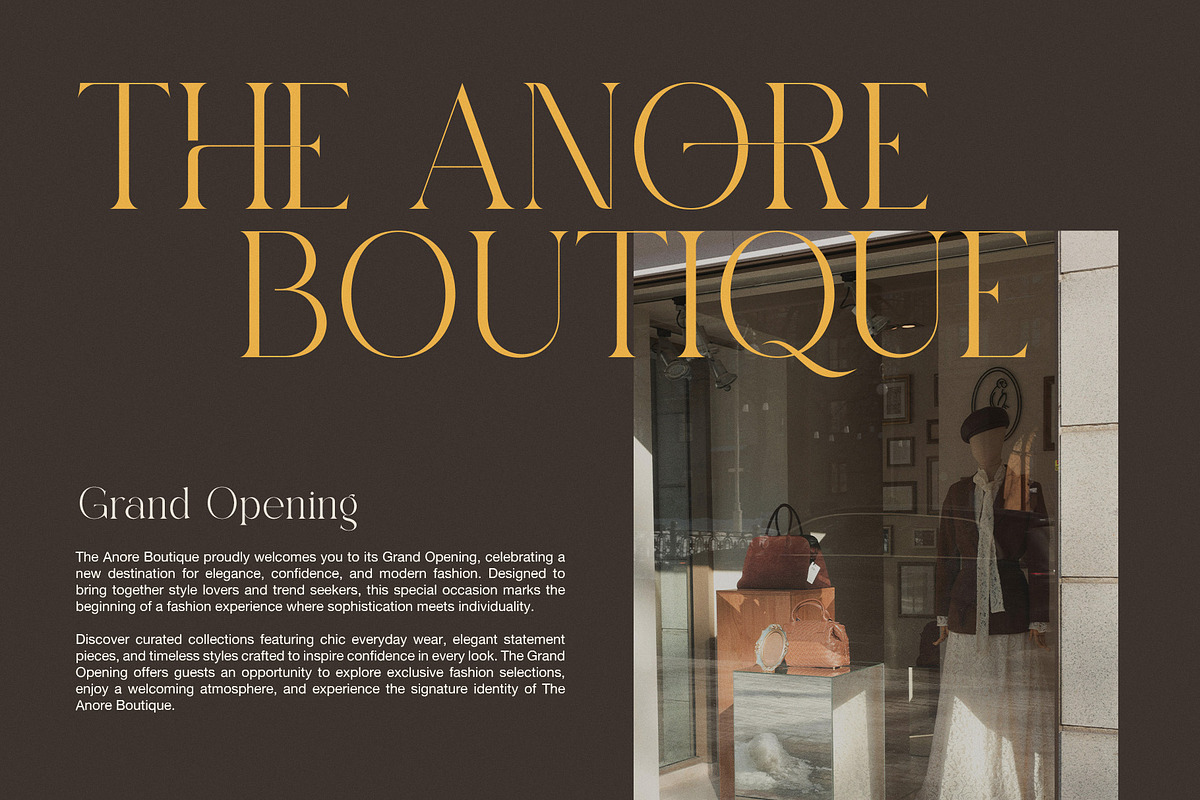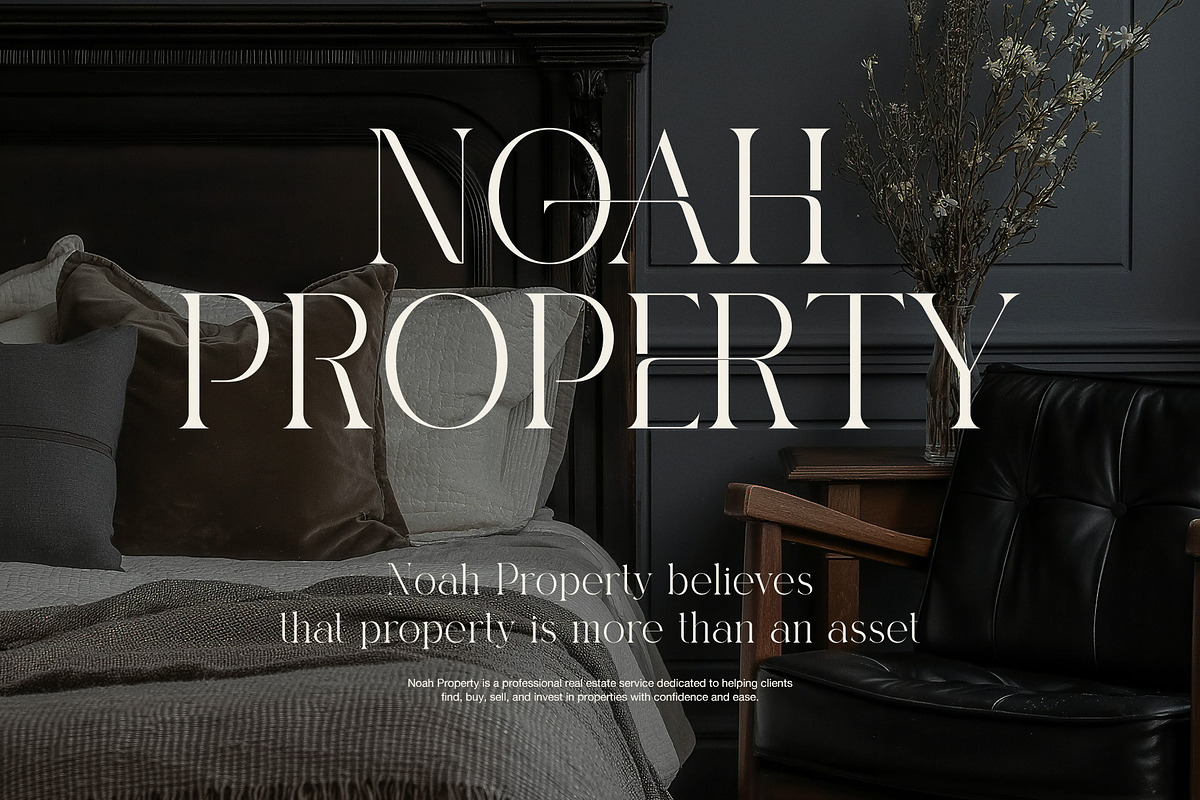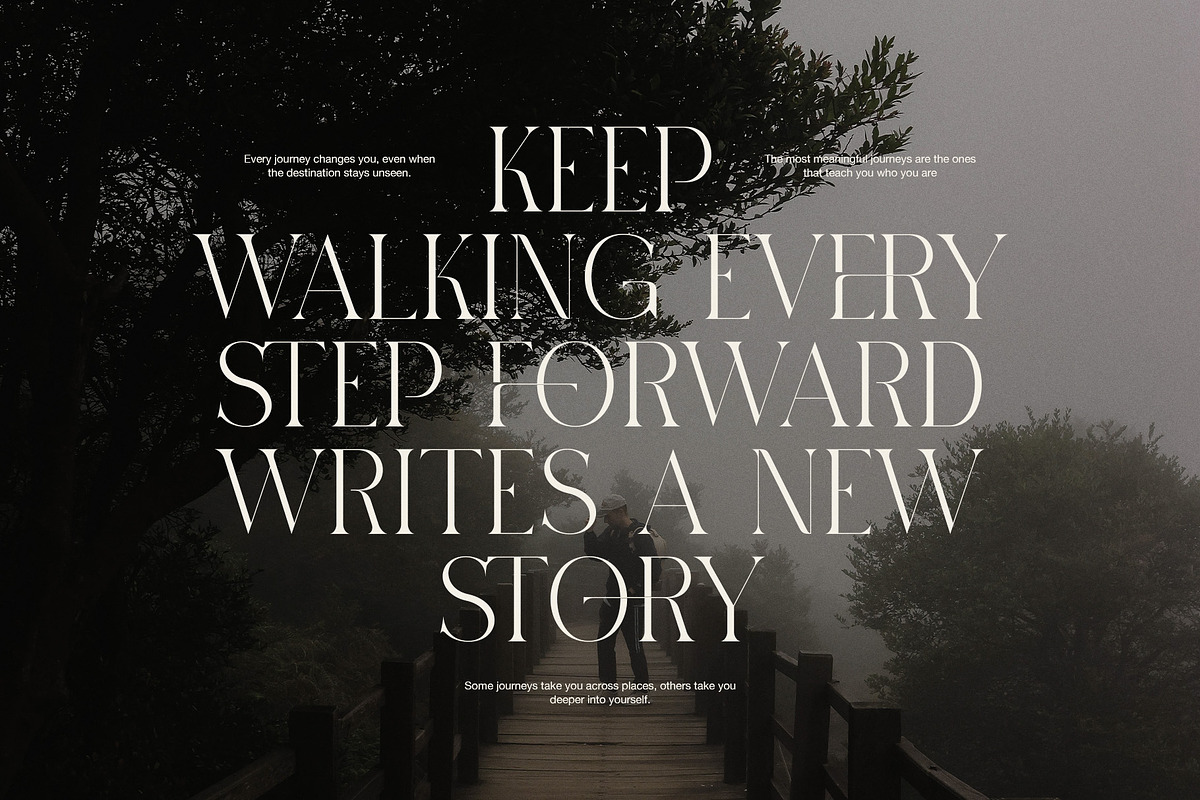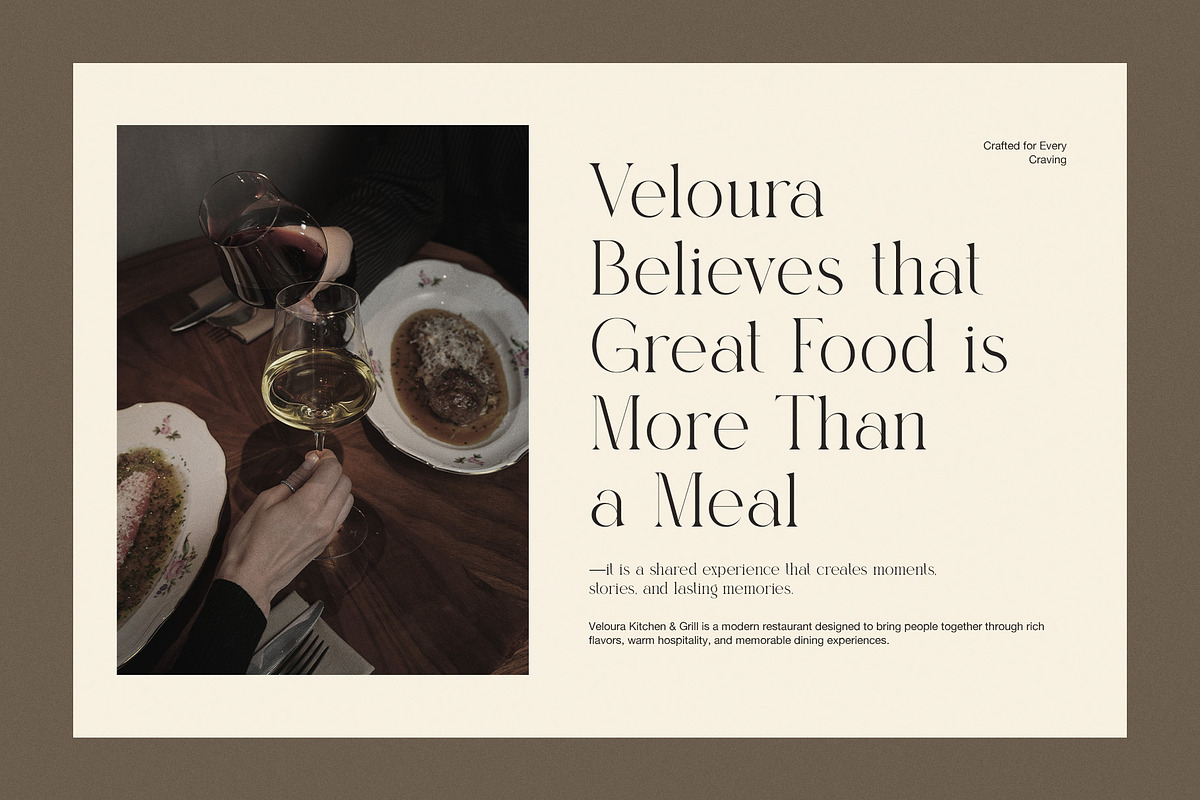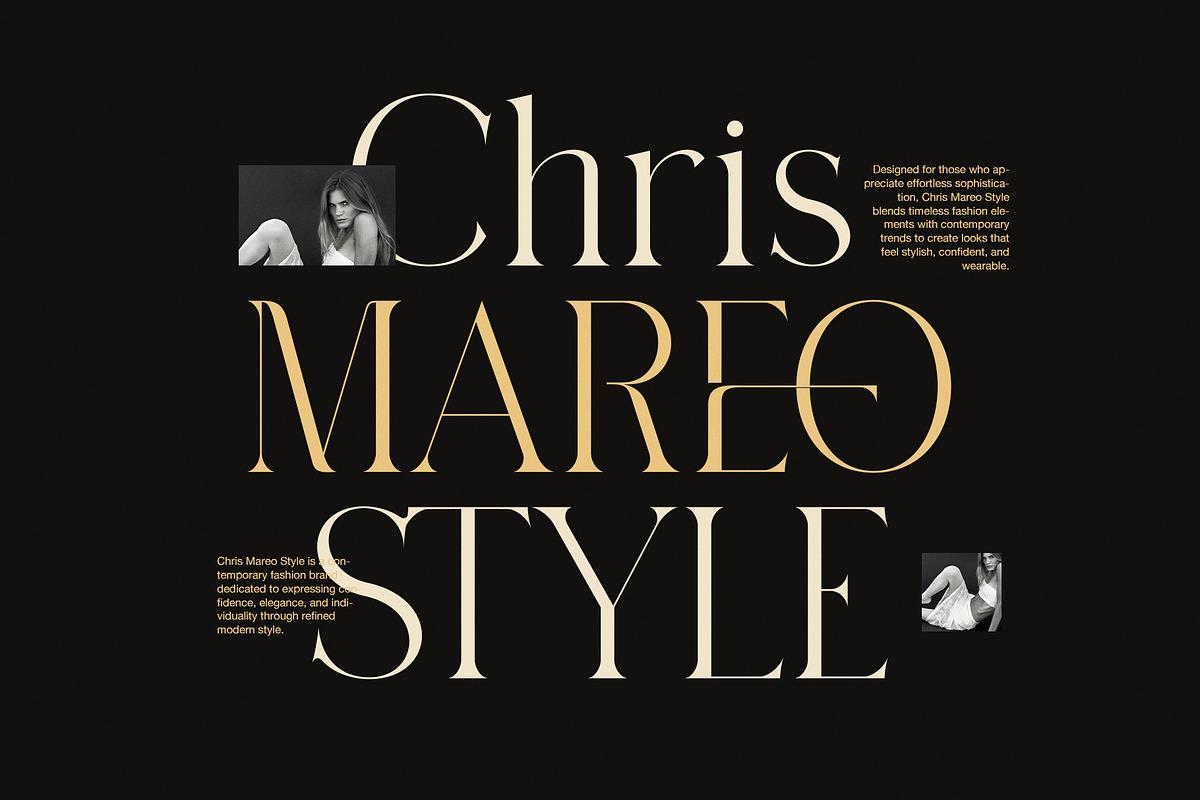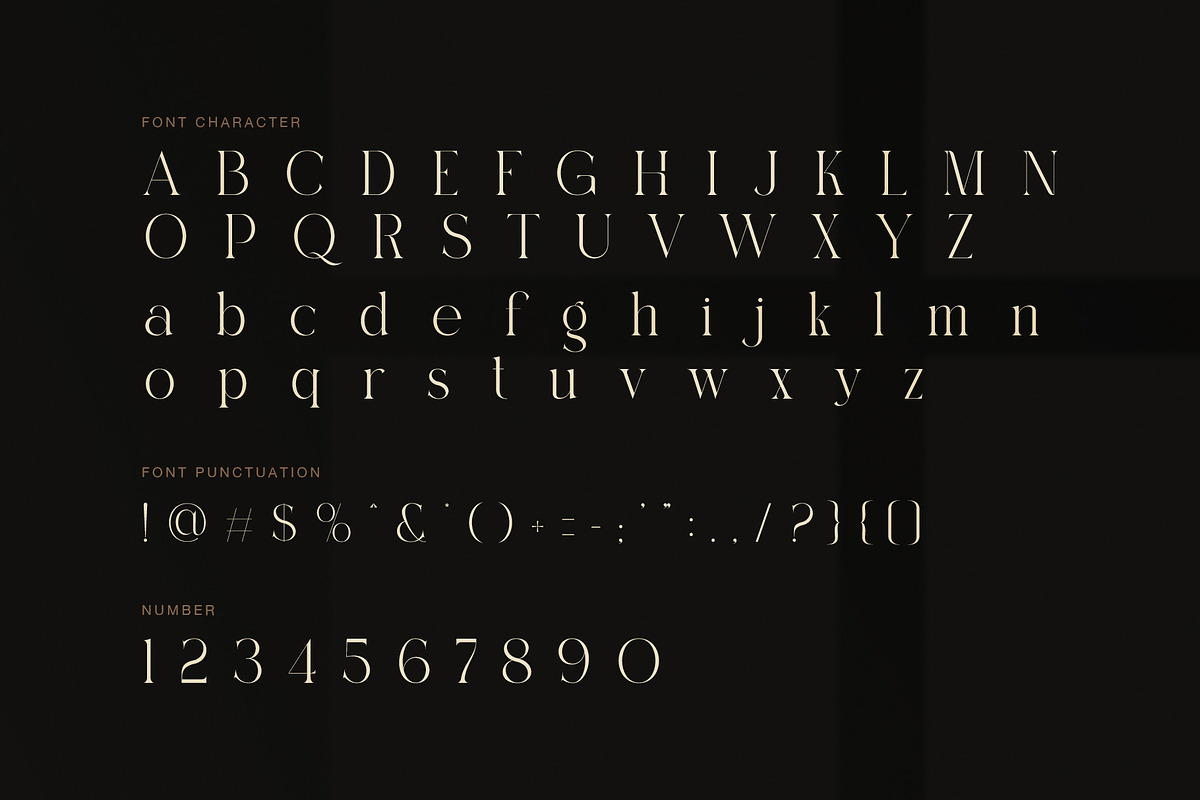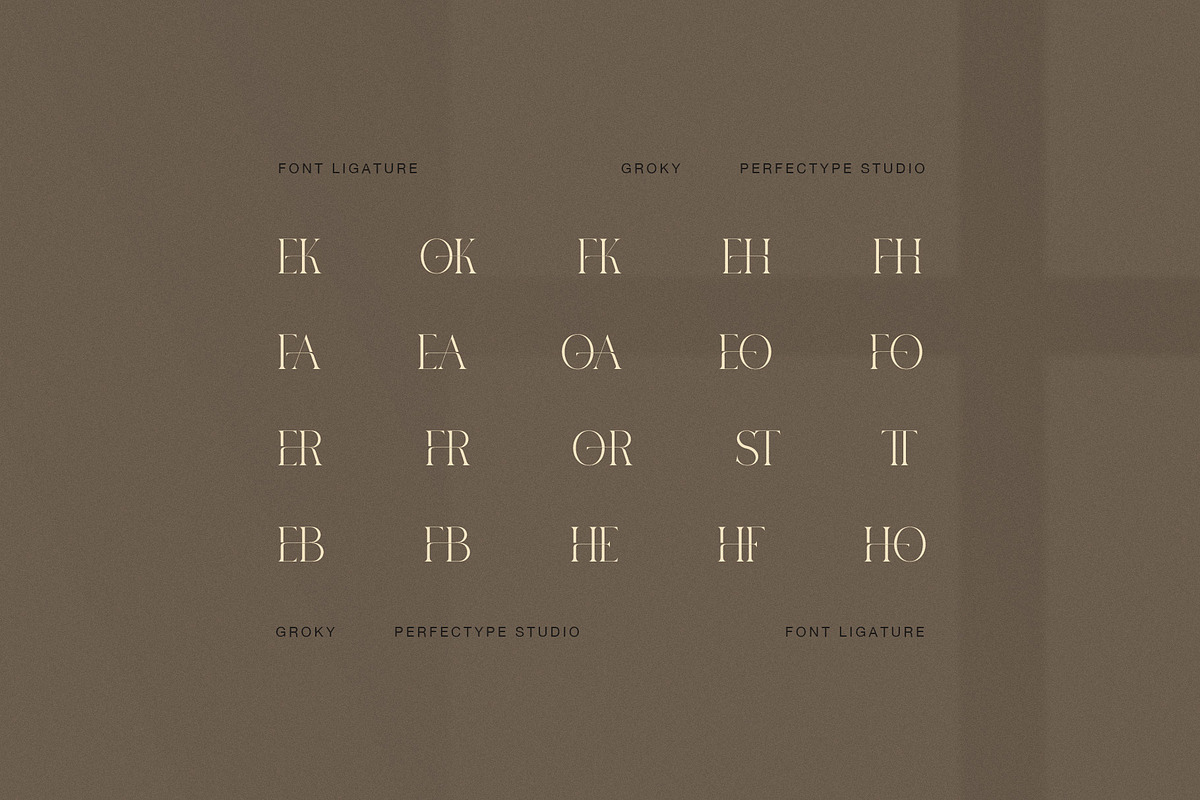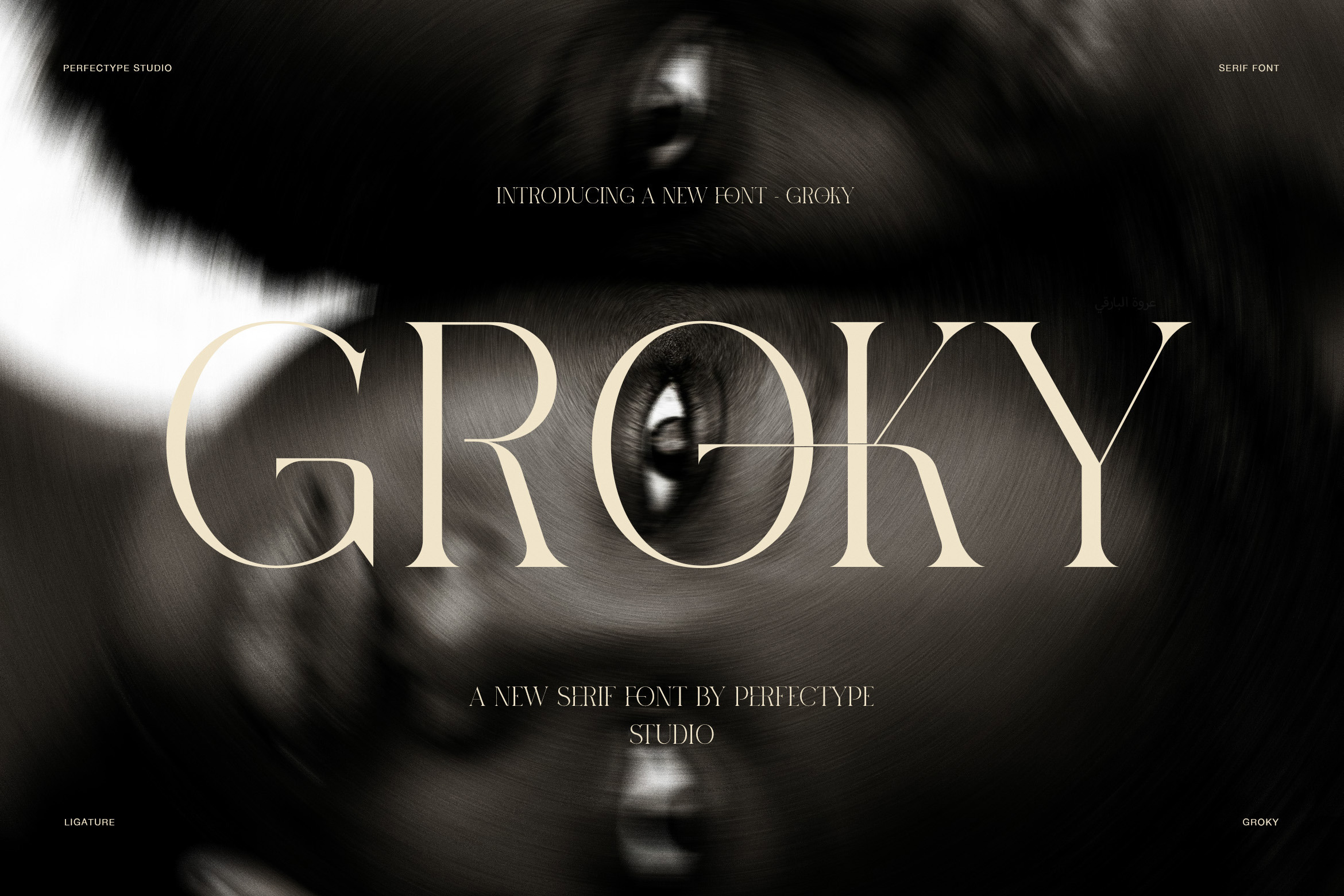
Groky Elegant Ligature Serif Font
Groky Elegant Ligature Serif Font is a refined display serif made for designers who want a graceful, dramatic, and polished visual tone. It combines tall classic letterforms, thin-to-thick contrast, and elegant ligature details. Because of that, Groky feels stylish, elevated, and striking in every headline.
This font has a strong luxury mood. The uppercase letters look tall and poised, while the lowercase set feels soft and graceful. As a result, Groky works beautifully in layouts that need a premium look without feeling stiff. Moreover, the serif construction gives it a timeless base, yet the ligatures add a modern editorial twist. That balance makes the font feel both classic and current.
Groky is especially effective in branding and display work. It looks beautiful on fashion campaigns, boutique logos, restaurant branding, hotel identities, real estate presentations, and editorial covers. In addition, the ligatures help create a custom and memorable look, so short words, names, and titles gain more personality with less effort.
Another key strength of Groky is its clean visual rhythm. The spacing feels neat, the curves are controlled, and the sharp contrast adds elegance without hurting readability. Therefore, designers can use it for bold headlines, hero text, brand signatures, and refined packaging. Even in minimal layouts, Groky keeps the composition feeling rich and intentional.
Why Groky stands out
Elegant serif style with a luxury feel
Stylish ligatures for a custom touch
Tall letterforms with refined contrast
Clean rhythm for editorial layouts
Classic foundation with modern flair
Strong for logos, covers, and branding
Best uses for Groky
fashion branding
luxury logos
boutique identity
editorial headlines
restaurant menus
hotel branding
beauty packaging
real estate presentation
social media graphics
premium event materials
If you are looking for an elegant ligature serif font with a dramatic but polished tone, Groky is a strong choice. It brings beauty, clarity, and presence to modern design work. Meanwhile, it stays versatile enough for many creative industries. So, whether you are building a luxury brand, a stylish campaign, or an editorial layout, Groky helps your typography look refined, memorable, and confidently premium.